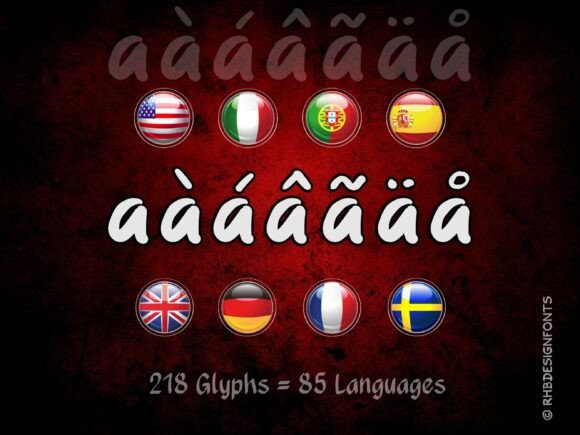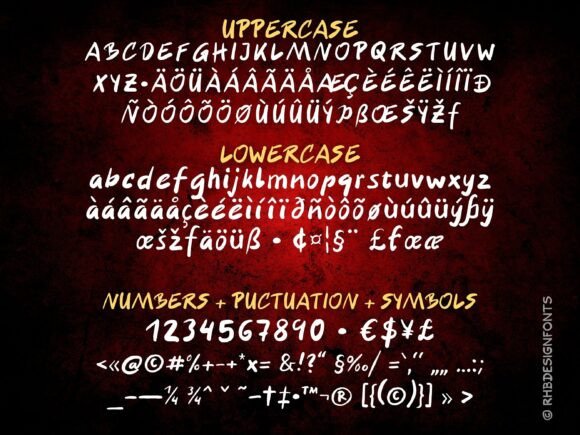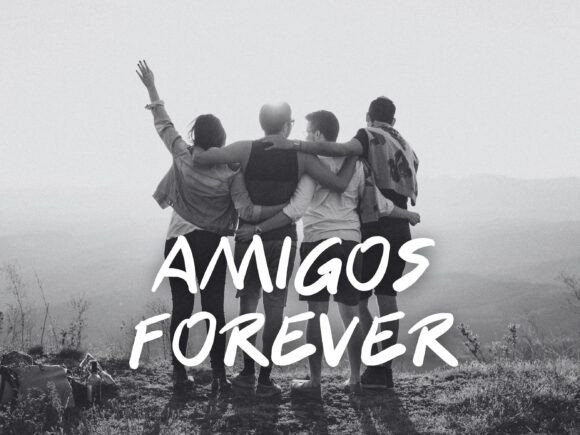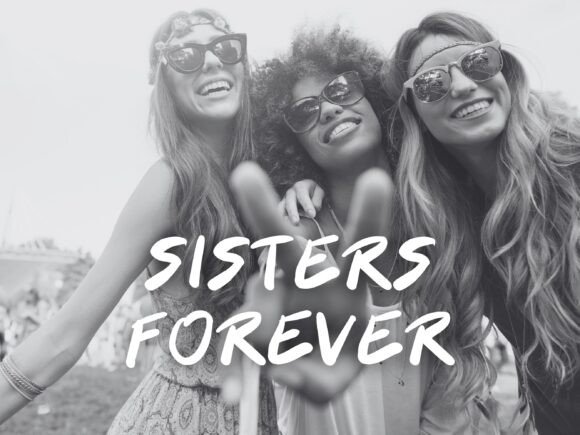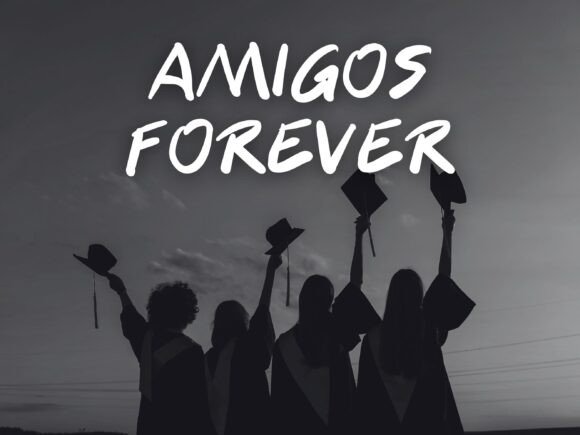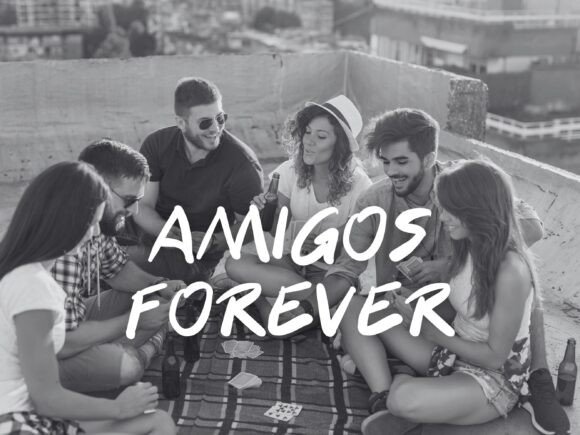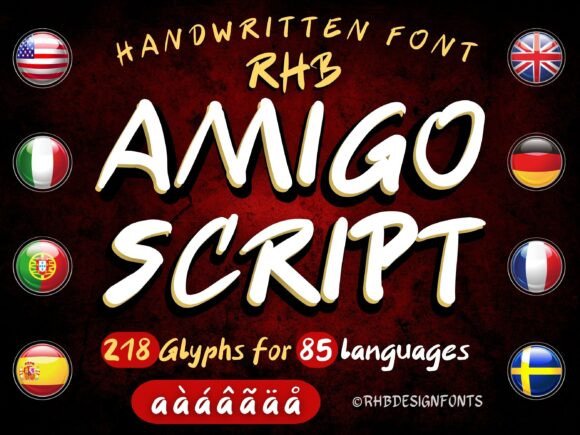
Introducing Amigo Script Font: A Handwritten Brush Font with a Personal Touch
Are you tired of using generic fonts that lack personality? Look no further than the „RHB Amigo Script” font, a beautiful handwritten brush font designed with the Apple Pencil on the iPad. This unique font is perfect for designers and crafters who want to add a personal touch to their projects.
Design and Features
The „RHB Amigo Script” font is a multilingual font that supports a wide range of languages, including English, French, Italian, German, Spanish, Swedish, and many more. With 218 glyphs, letters, numbers, and punctuation marks, this font has everything you need to create stunning text-based designs.
One of the standout features of this font is its handwritten brush style, which gives it a warm and organic feel. The font was designed with the Apple Pencil on the iPad, which allowed the designer to create a truly unique and expressive font.
Whether you’re a designer, crafter, or DIY enthusiast, the „RHB Amigo Script” font is perfect for a wide range of projects. Use it to create:
- Handmade cards and invitations
- Custom packaging and labels
- Branding and marketing materials
Why Choose the „RHB Amigo Script” Font?
So why choose the „RHB Amigo Script” font over other fonts on the market? Here are just a few reasons:
- Unique and expressive: This font has a truly unique and expressive style that will set your designs apart from the crowd.
- Multilingual support: With support for a wide range of languages, this font is perfect for designers and crafters who work with international clients or want to reach a global audience.
- High-quality design: The font was designed with care and attention to detail, ensuring that it looks great in any size or context.
Tips for Using the „RHB Amigo Script” Font
Here are a few tips for getting the most out of the „RHB Amigo Script” font:
- Use it with a bold font: Pair the „RHB Amigo Script” font with a bold font for a striking contrast that will make your designs pop.
- Experiment with colors: The „RHB Amigo Script” font looks great in a wide range of colors, so don’t be afraid to experiment and find the perfect hue for your design.
- Use it for headings and titles: The „RHB Amigo Script” font is perfect for headings and titles, where its unique style can really shine.
In conclusion, the „RHB Amigo Script” font is a beautiful and unique handwritten brush font that is perfect for designers and crafters who want to add a personal touch to their projects. With its multilingual support, high-quality design, and ease of use, this font is a must-have for anyone looking to take their designs to the next level.